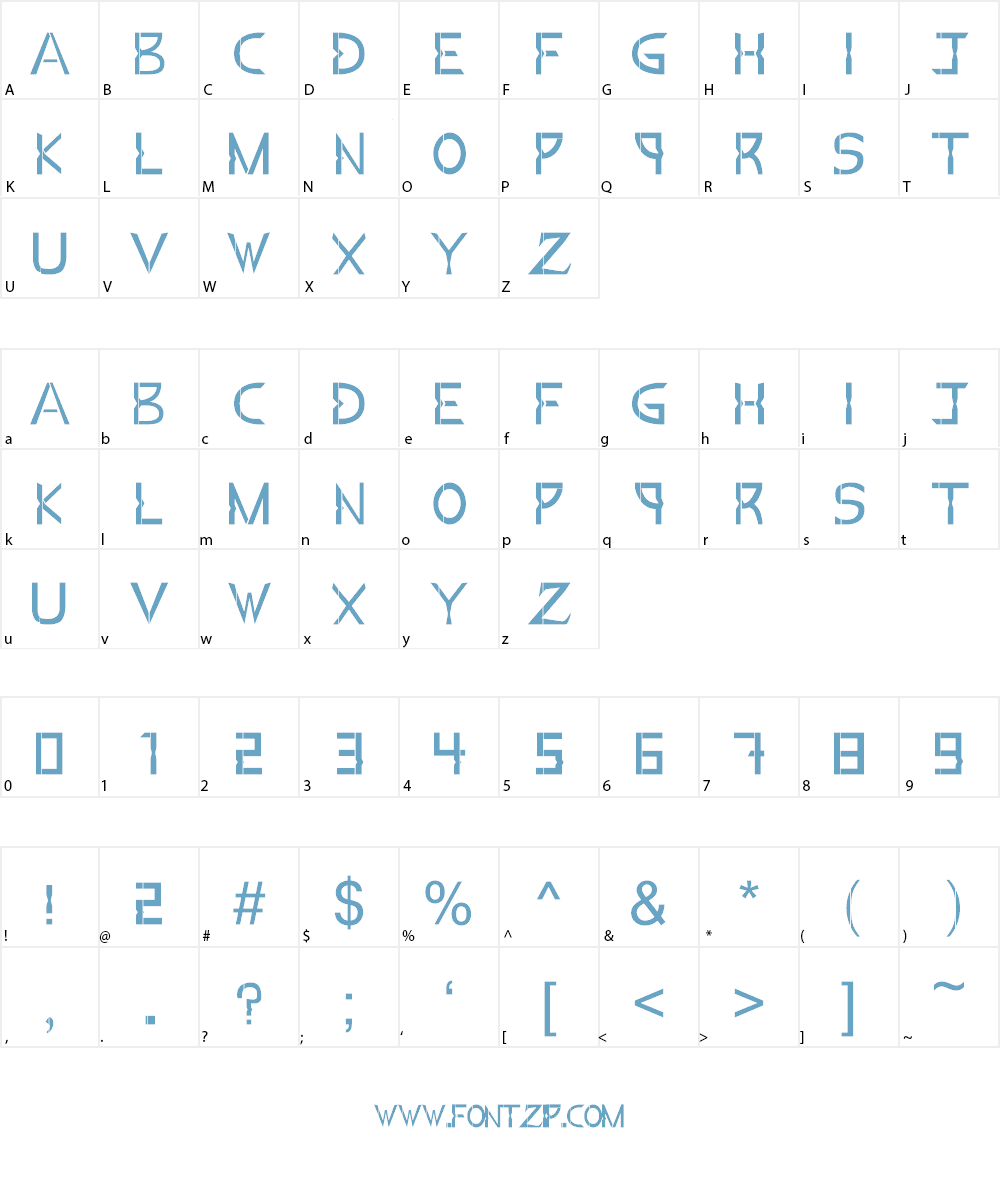
This is the second source Inspired by the character of Power Rangers "Lord Zedd" of my collection, the difference is that this has a very basic design since it could not be very flashy or exaggerated contours as the first one with the same design name, if given more like the character who inspired me.